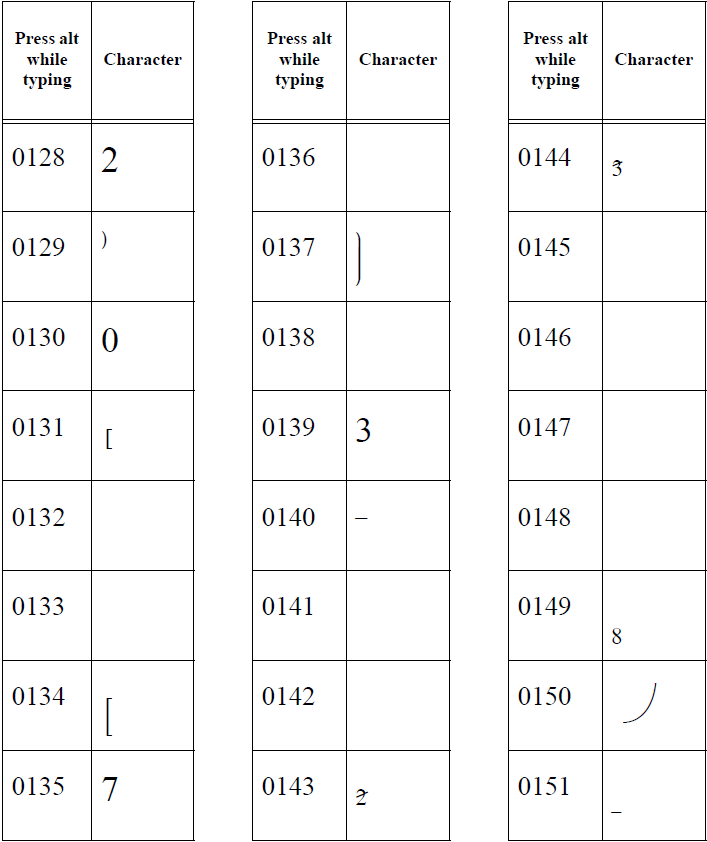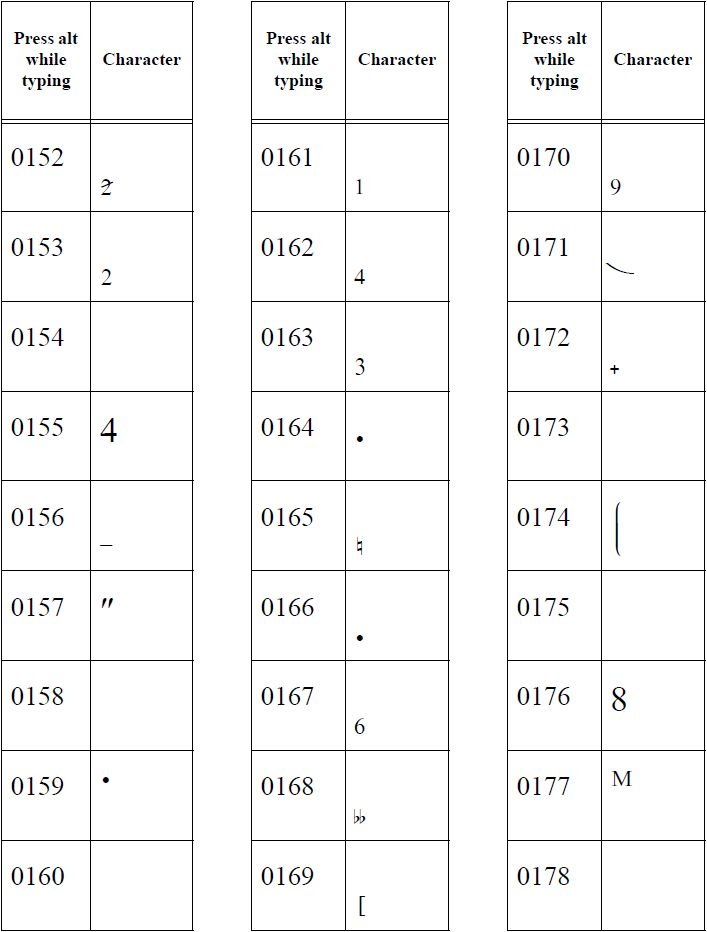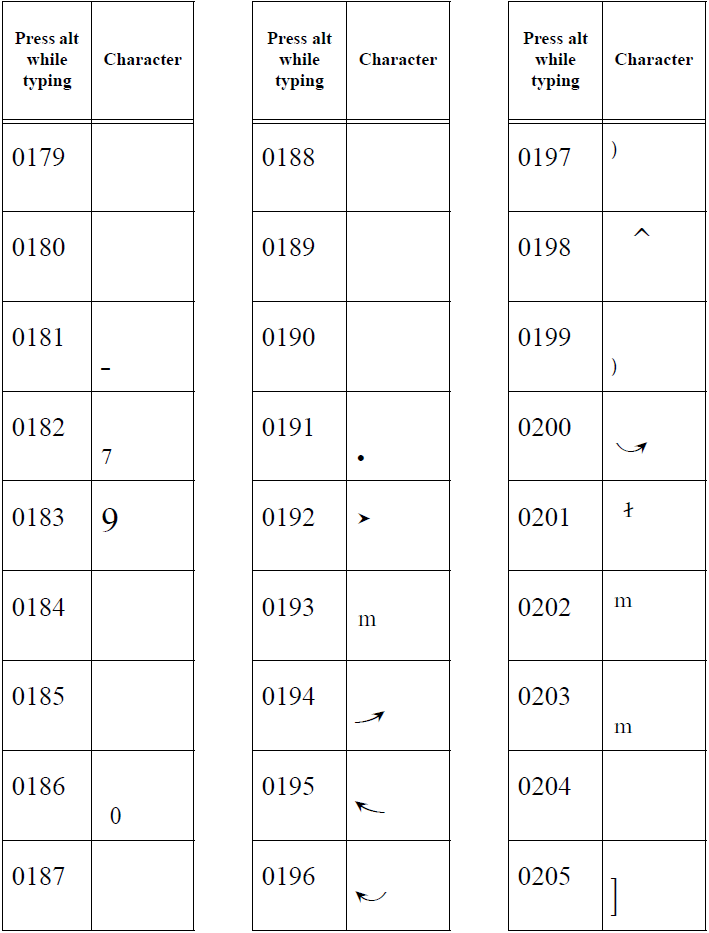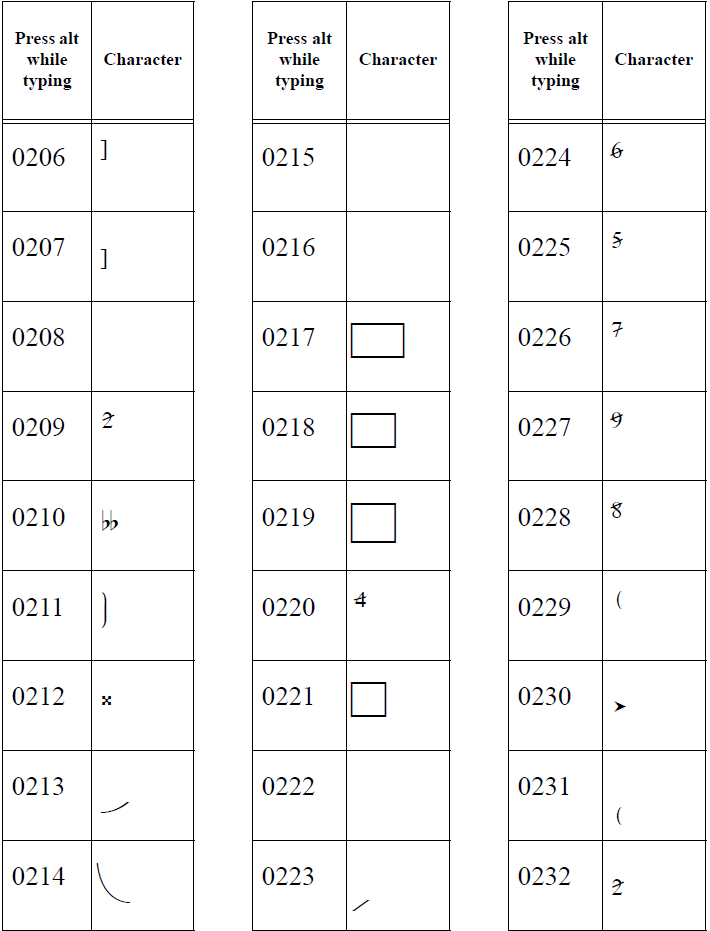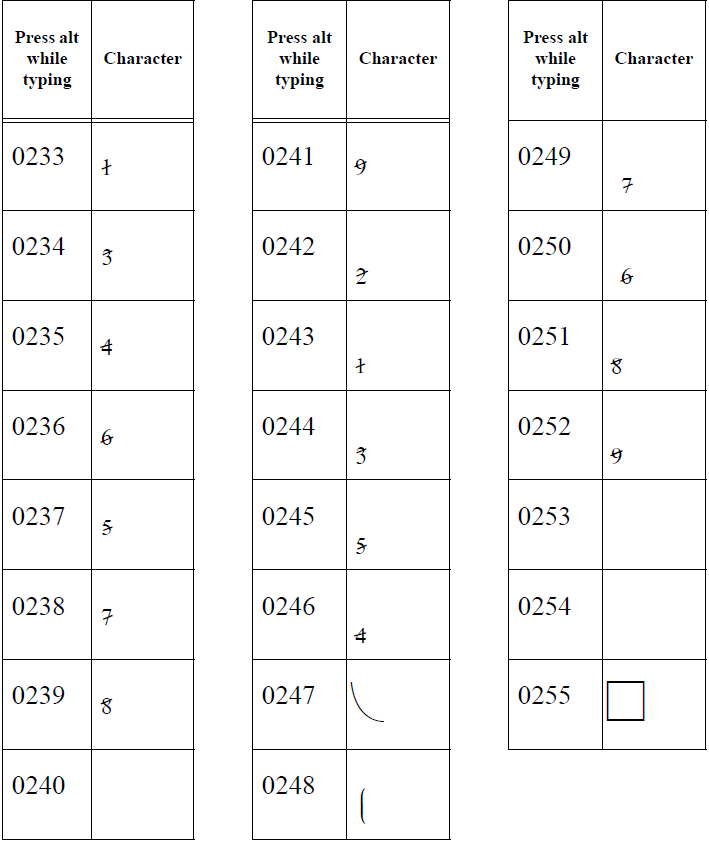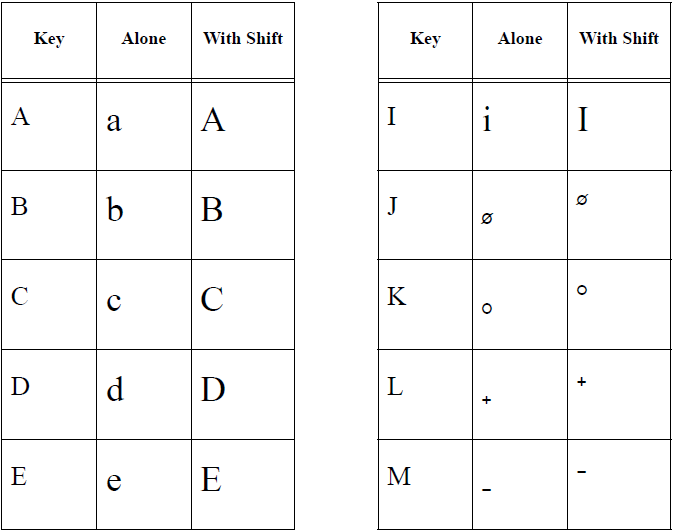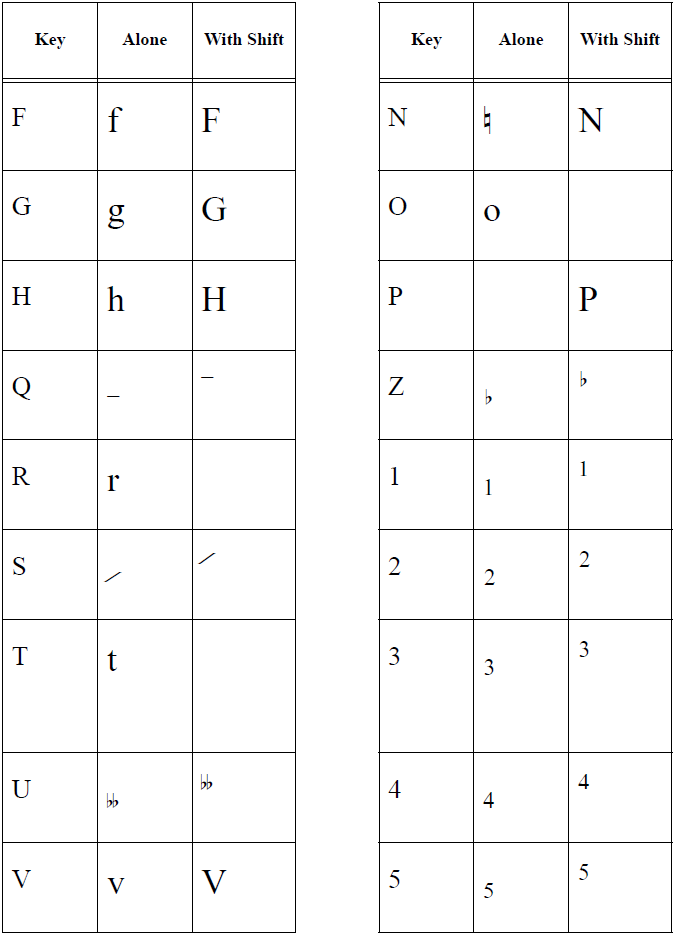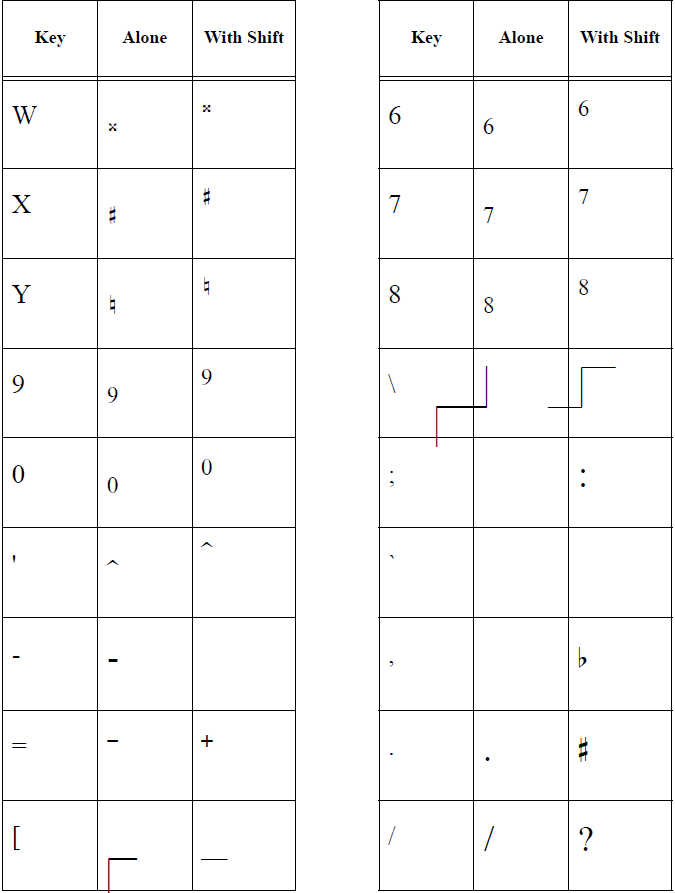
The Finale Numerics font includes all the characters you need to create harmonic analysis and figured bass. Zero-width characters allow you to easily stack characters. Use the Lyrics tool to add your harmonic analysis or figured bass beneath the staff. For instructions, see Harmonic Analysis and Figured Bass.
Note: This list includes the most commonly used characters and keystrokes. For a complete list of Finale Numerics characters consult your operating system's font character map.